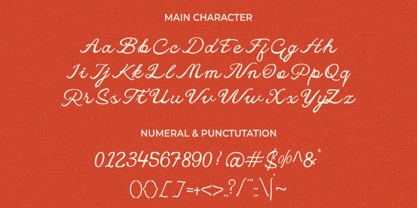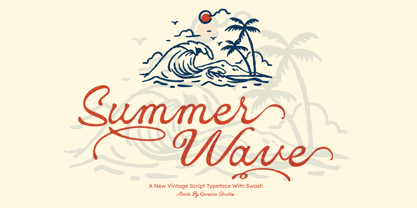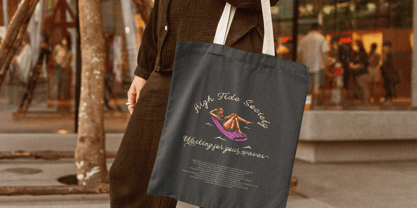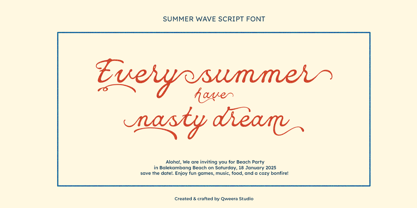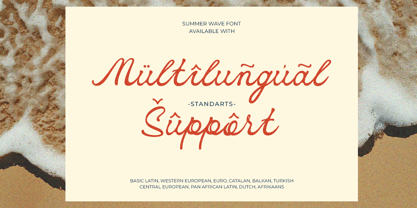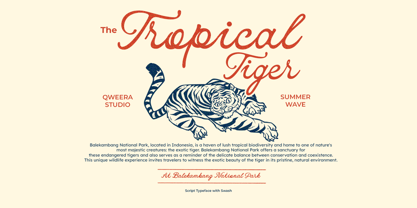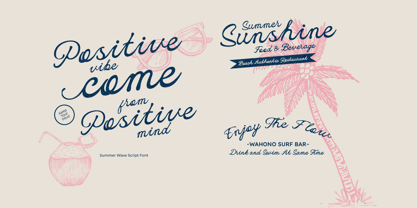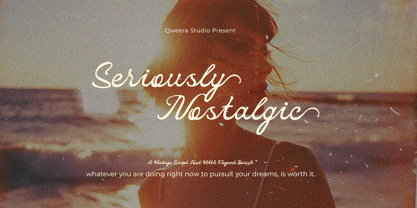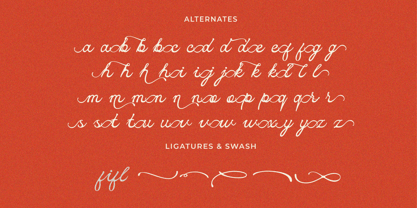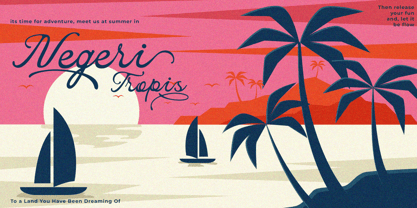
Summer Wave
by Qweera Studio
The Summer Wave Font Family was designed by Idhham Cholid Rikzano Yahya and published by Qweera Studio. Summer Wave contains 1 styles. More about this family
Summer Wave – Handwritten Script Font with Stylish Swashes
Summer Wave is a stunning handwritten script font featuring smooth strokes, elegant swashes, and unique alternates, perfect for adding a vintage yet modern touch to your designs. Its organic flow and stylish ligatures make it an ideal choice for branding, posters, magazine layouts, social media graphics, and print designs. Whether you're crafting a tropical summer logo, wedding invitation, or retro-style merchandise, Summer Wave enhances your project with effortless elegance.